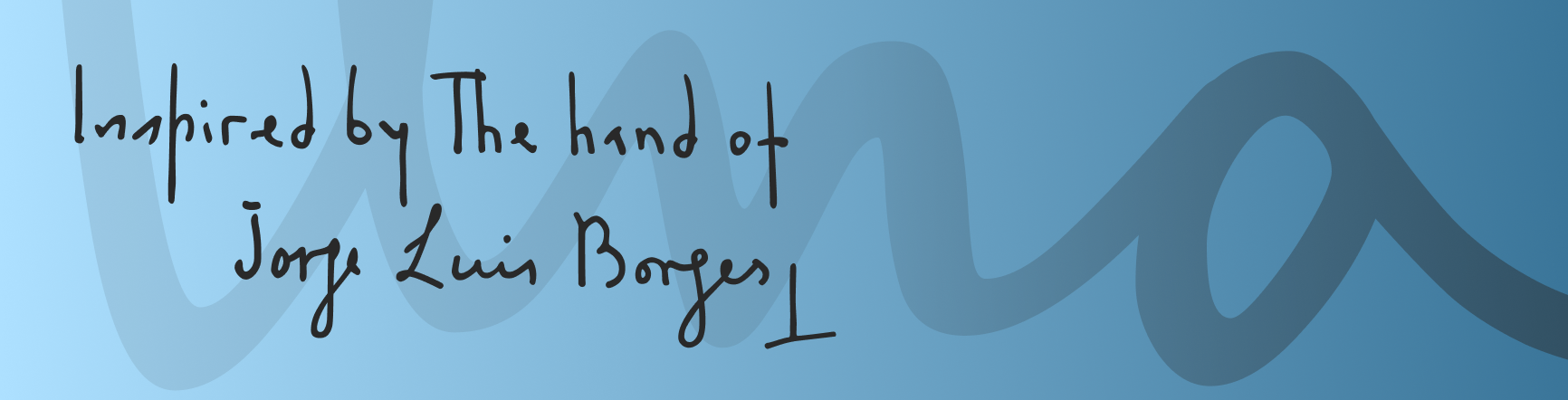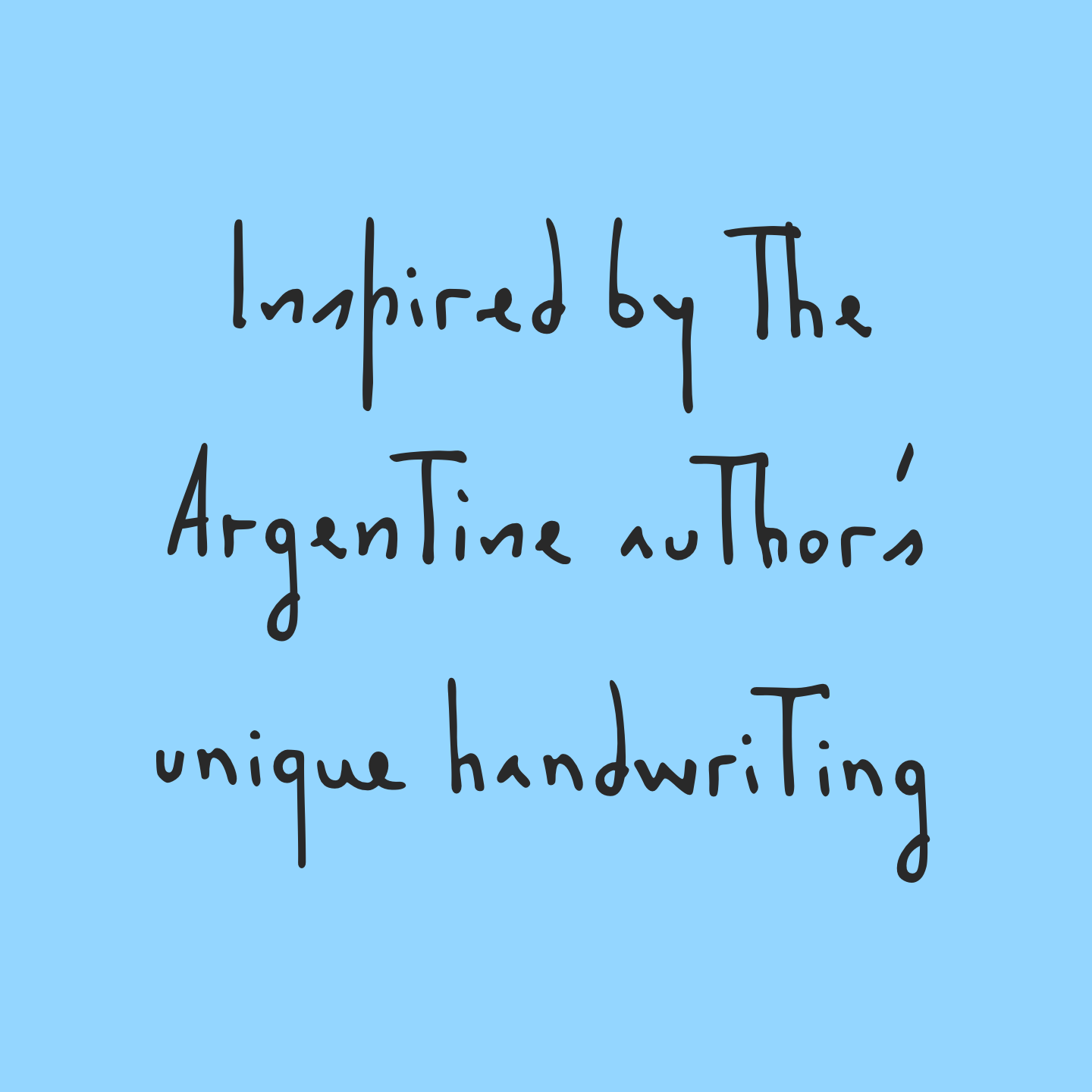
Jorge Mano
Handwritten Contextual Alternates Font
Jorge Mano is inspired by the Argentine poet and author Jorge Luis Borges and the very unique hand he developed in the late 1920’s. ‘Su letra de insecto,’ as he called it, was a tight, but charactistically legible, print hand with extreme ascenders and descenders. According to Celeste Martin it was his 3rd distinct style and last before his vision began to deteriorate.